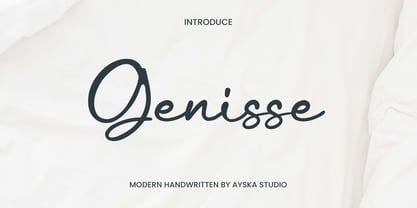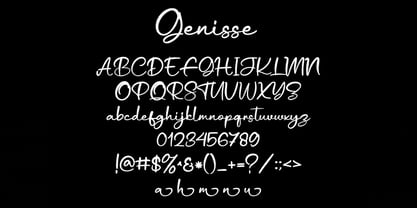
Genisse
by Ayska
The Genisse Font Family was designed by Dhoni Trihatmoko and published by Ayska. Genisse contains 1 styles. More about this family
Genisse font that was born with exquisite calligraphy-style handwriting. This Paradise font has been kerned very neatly and has many alternate characters which are very easy to use for both PC and MAC. And of course, this Paradise font can be used for many projects such as you can use it for greeting cards, wedding invitation cards, product branding, logotypes, websites, business cards, letterheads, shop names, company names, wedding invitation cards, product packaging for your business, clothing branding, crafting, and many more. It's also great for adding a personal touch to uplifting quotes, displaying cheerful messages on apparel or creating custom product tags that stand out from the crowd
Designers: Dhoni Trihatmoko
Foundry: Ayska